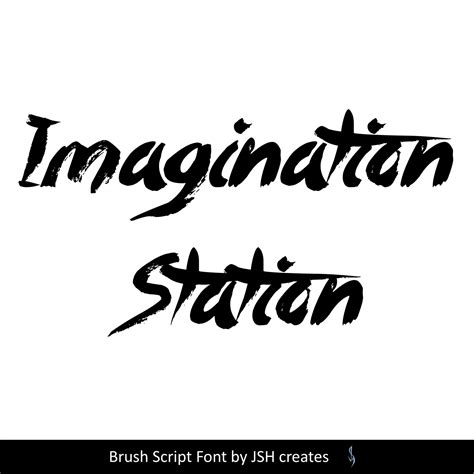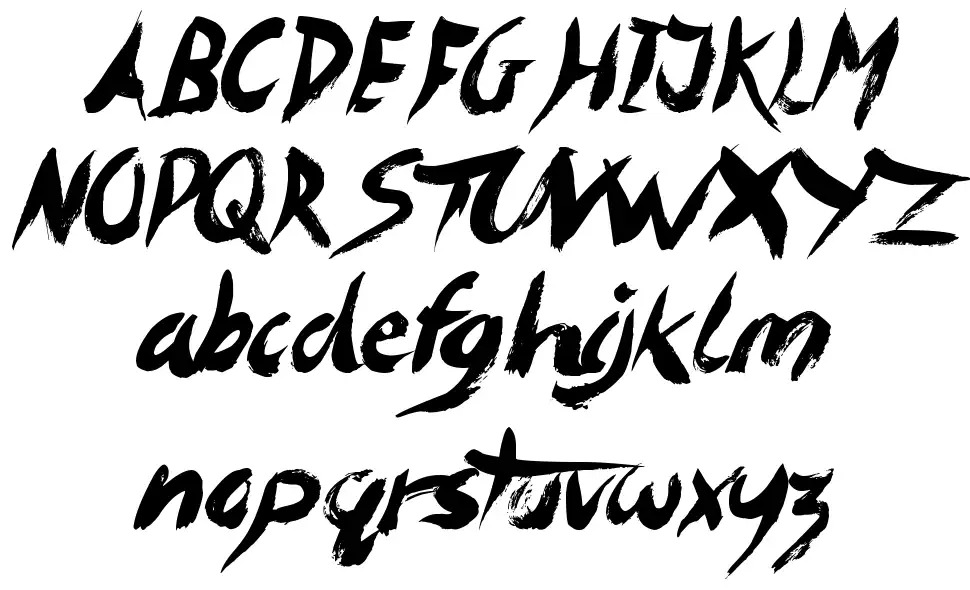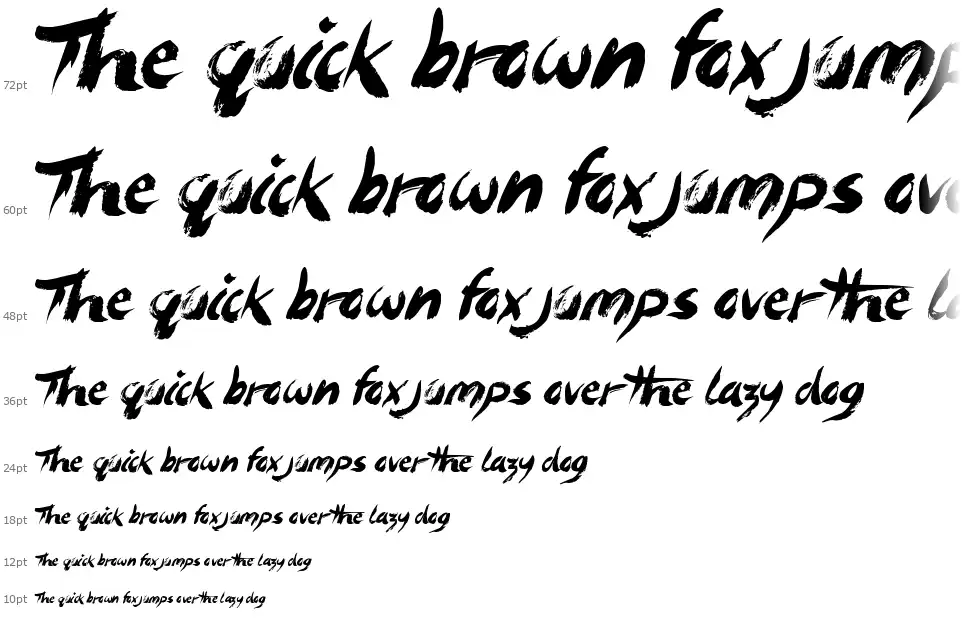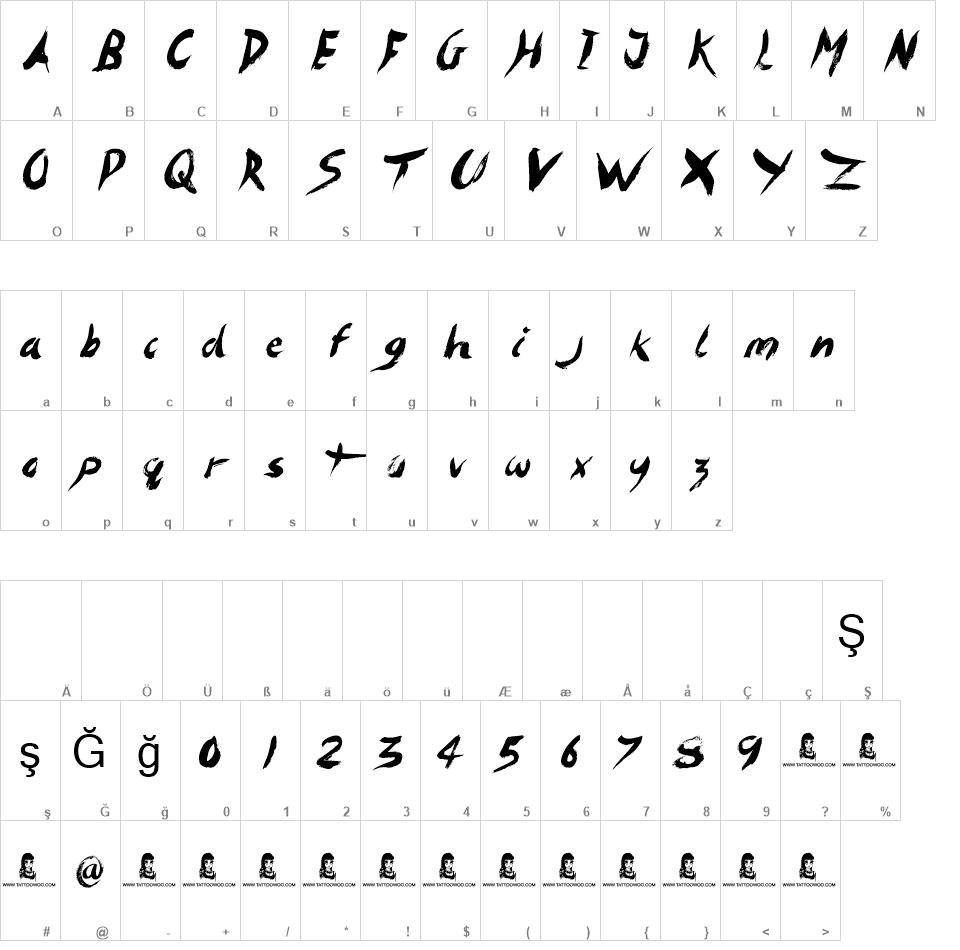
Imagination Station Font . Imagination station is a script type font that can be. Web free download of imagination station font.
Released in 2013 by jonathan s. Imagination station fonts for websites and design projects. Imagination station is a script type font that can be.
Imagination Station Font - Released in 2013 by jonathan s. Web imagination station font download is available free from fontget. Web free download of imagination station font. Web free imagination station font in ttf, woff2 or otf format. Web download and install the imagination station font by jonathan s.
Imagination Station Font - Imagination station fonts for websites and design projects. Web free download of imagination station font. Released in 2013 by jonathan s. Imagination station is a script type font that can be. Moreover, you can embed it to your website with.
Imagination Station Font - Web free imagination station font in ttf, woff2 or otf format. Imagination station is a script type font that can be. Web download and install the imagination station font by jonathan s. Released in 2013 by jonathan s. Web free download of imagination station font.
Imagination Station Font - Imagination station is a script type font that can be. Web you may use this version of 'imagination station' for personal use only but if you wish to use it commercially you will need to. Released in 2013 by jonathan s. Web free download of imagination station font. Web download and install the imagination station font by jonathan s.
Imagination Station Font - Imagination station fonts for websites and design projects. Moreover, you can embed it to your website with. Imagination station is a script type font that can be. Web you may use this version of 'imagination station' for personal use only but if you wish to use it commercially you will need to. Web free download of imagination station font.
Imagination Station Font - Imagination station fonts for websites and design projects. Web you may use this version of 'imagination station' for personal use only but if you wish to use it commercially you will need to. Web download and install the imagination station font by jonathan s. Web free download of imagination station font. Imagination station is a script type font that can.
Imagination Station Font - Web free imagination station font in ttf, woff2 or otf format. Released in 2013 by jonathan s. Web download and install the imagination station font by jonathan s. Moreover, you can embed it to your website with. Imagination station is a script type font that can be.
Imagination Station Font - Web you may use this version of 'imagination station' for personal use only but if you wish to use it commercially you will need to. Web free imagination station font in ttf, woff2 or otf format. Imagination station fonts for websites and design projects. Web download and install the imagination station font by jonathan s. Moreover, you can embed it.
Imagination Station Font - Web you may use this version of 'imagination station' for personal use only but if you wish to use it commercially you will need to. Imagination station is a script type font that can be. Web imagination station font download is available free from fontget. Imagination station fonts for websites and design projects. Web free download of imagination station font.
Imagination Station Font - Web download and install the imagination station font by jonathan s. Web free imagination station font in ttf, woff2 or otf format. Released in 2013 by jonathan s. Imagination station fonts for websites and design projects. Imagination station is a script type font that can be.
Imagination Station Font - Imagination station fonts for websites and design projects. Web free download of imagination station font. Moreover, you can embed it to your website with. Web download and install the imagination station font by jonathan s. Imagination station is a script type font that can be.
Imagination Station Font - Web free download of imagination station font. Released in 2013 by jonathan s. Imagination station fonts for websites and design projects. Web download and install the imagination station font by jonathan s. Web you may use this version of 'imagination station' for personal use only but if you wish to use it commercially you will need to.
Imagination Station Font - Moreover, you can embed it to your website with. Imagination station fonts for websites and design projects. Web imagination station font download is available free from fontget. Web free download of imagination station font. Imagination station is a script type font that can be.
Imagination Station Font - Web imagination station font download is available free from fontget. Web free imagination station font in ttf, woff2 or otf format. Moreover, you can embed it to your website with. Imagination station fonts for websites and design projects. Web you may use this version of 'imagination station' for personal use only but if you wish to use it commercially you.